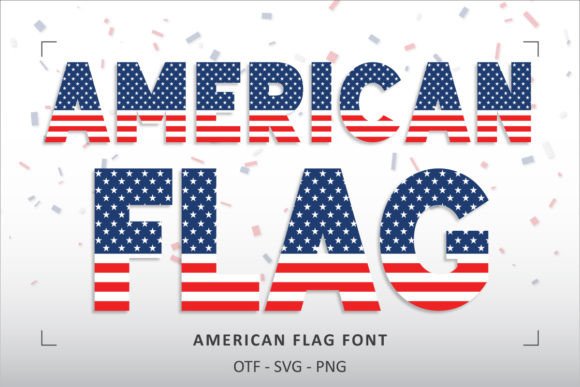
Introducing the American Flag Font: A Patriotic Design Essential
Ah, the quest for the perfect font! I recall a particularly frustrating design session where I was working on a 4th of July-themed project, and my usual go-to fonts just weren’t cutting it. The client wanted something bold, attention-grabbing, and unmistakably American. That’s when I stumbled upon the American Flag Font, and let me tell you, it was love at first sight! 💫
What I Love About the American Flag Font
Here’s what makes this font a standout:
- ✨ Unique Style: The American Flag Font boasts an incredibly cool style that’s perfect for Memorial Day or 4th of July-themed projects.
- ✅ Versatility: It works great for a wide range of design applications, from t-shirts and book designs to restaurant menus, blog writing, and greeting cards.
- 💡 Attention-Grabbing: This font screams for attention, making it ideal for designs that need to stand out.
- 🎨 Casual Touch: It adds a lovely, casual touch to any design, making it perfect for stickers, posters, and more.
Honest Review: A Few Quirks
While the American Flag Font is a fantastic addition to any designer’s toolkit, there are a few things to keep in mind:
- 🤔 Legibility at Small Sizes: Like many decorative fonts, it may not be the best choice for body text or small font sizes.
- ⚠️ Limited Language Support: This font might not support all languages or special characters, so be sure to check the specifications before use.
Exploring OpenType Features
One of the exciting aspects of the American Flag Font is its support for OpenType features. These features allow you to:
- Access stylistic alternates for varied typography.
- Use glyphs to add decorative elements to your text.
- Explore different ligatures for a unique look.
While the origins of the American Flag Font might be shrouded in mystery, it’s easy to imagine a designer inspired by the stars and stripes, crafting a font that embodies the spirit of freedom and celebration. Perhaps a summer evening spent watching fireworks ignite the night sky sparked the creation of this bold, attention-grabbing typeface.
- Q: Does the American Flag Font support OpenType features?
A: Yes, this font comes with support for OpenType features, including glyphs and stylistic alternates.